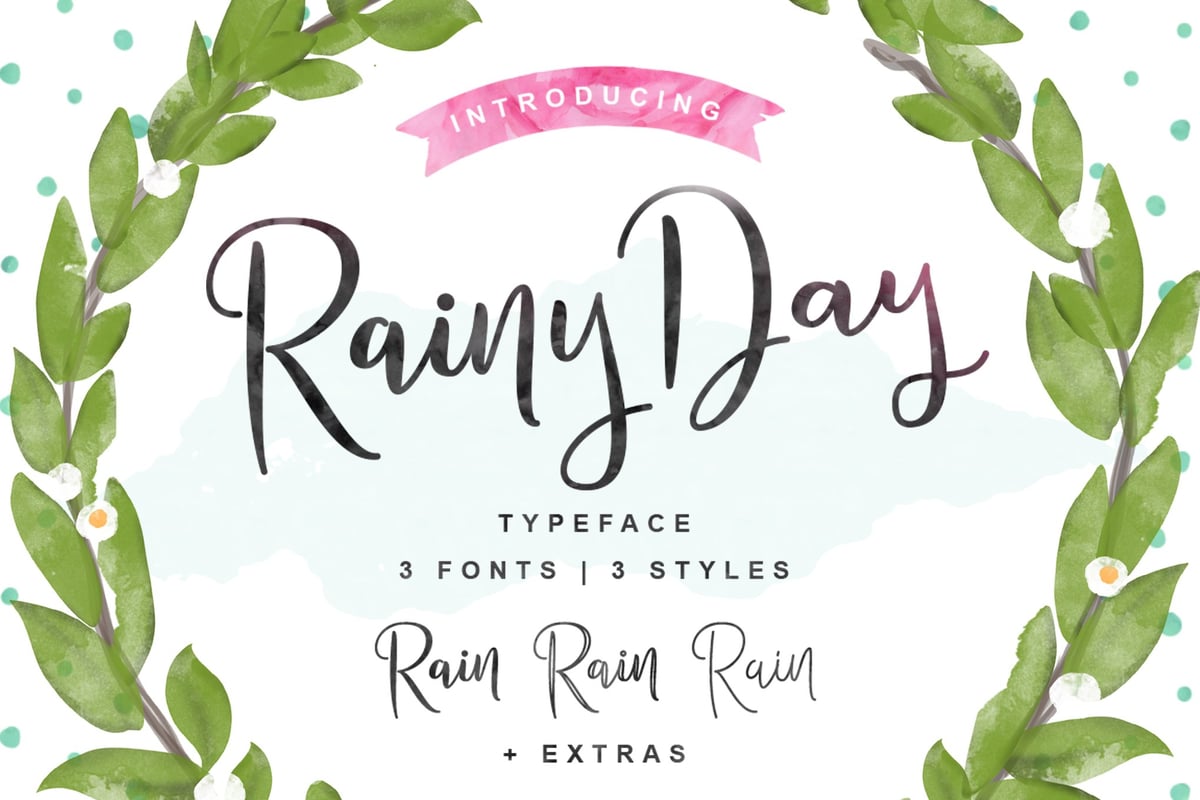
Rainy Day Typeface
Elegant, expressive, and endlessly versatile — Rainy Day is the modern calligraphy font your designs have been waiting for.
Rainy Day Typeface is a fresh Modern Calligraphy collection that bridges the gap between classic copperplate tradition and contemporary style, delivering a beautiful, elegant touch that feels both timeless and current.
The typeface comes in 3 distinct styles so you can mix, layer, and contrast for stunning results:
- Rainy Day Script — the signature flowing style
- Rainy Day Line — a refined, outlined variation
- Rainy Day Inline — a decorative inline treatment
Packed with 256 glyphs and 79 alternate characters, Rainy Day gives you full creative control. OpenType features include Standard Ligatures, Stylistic Alternates, and Stylistic Sets. The font also includes PUA Unicode encoding, so all special characters are fully accessible even without an OpenType-savvy application.
Rainy Day is ideal for:
- Apparel and fashion branding
- Greeting cards and stationery
- Wedding invitations and signage
- Painting and artisan-style design
- Any project calling for a natural, personal, handcrafted feel